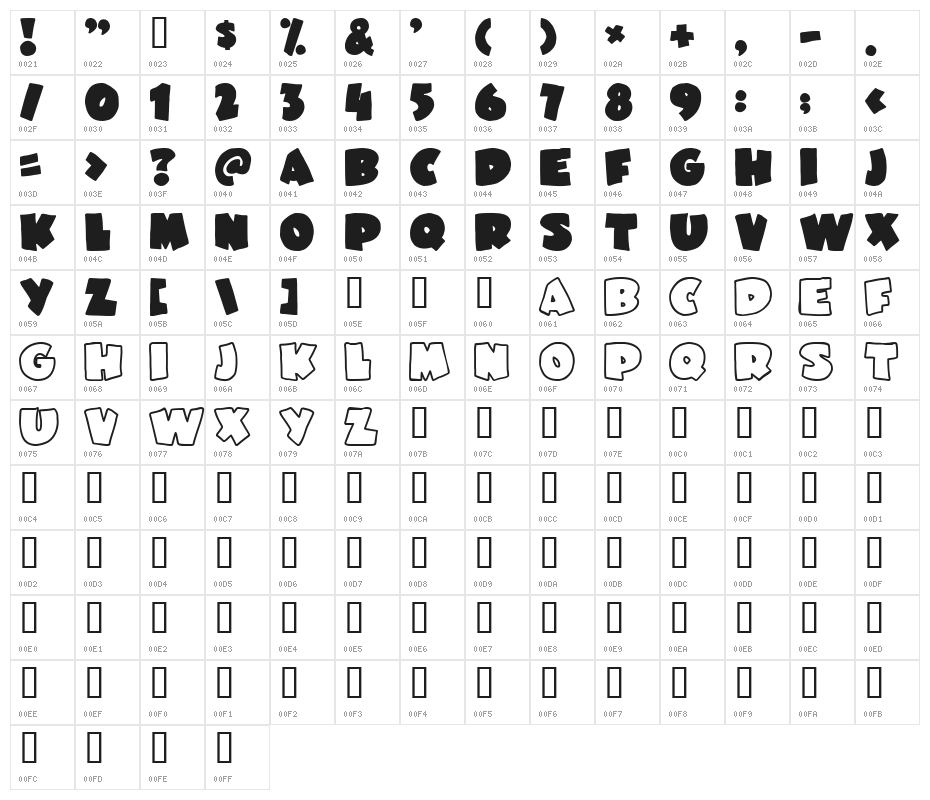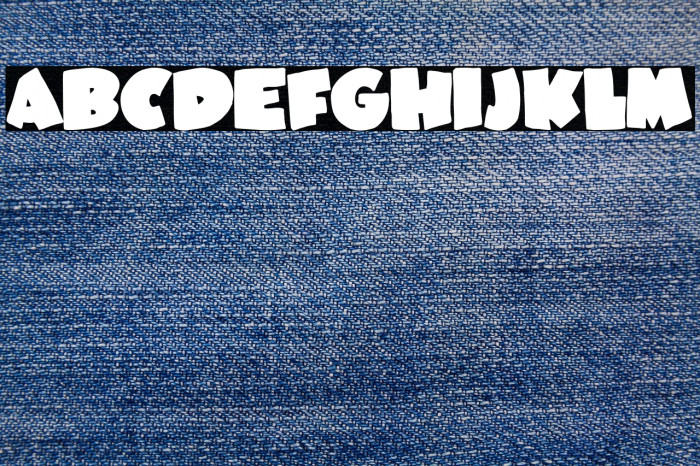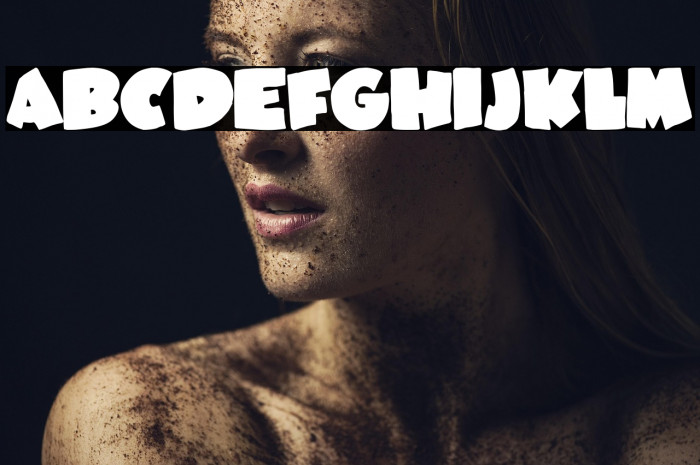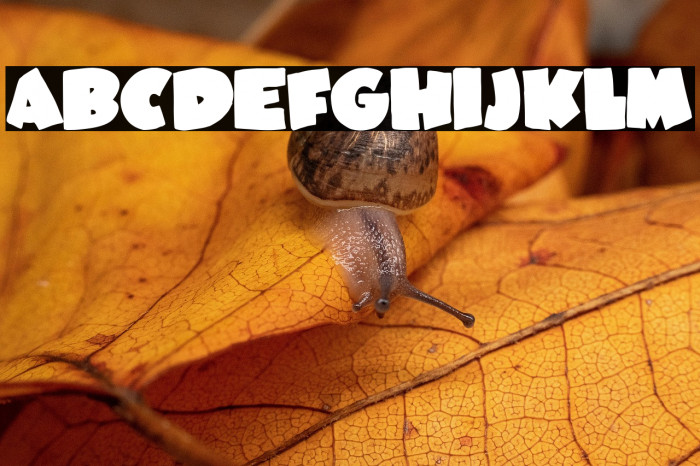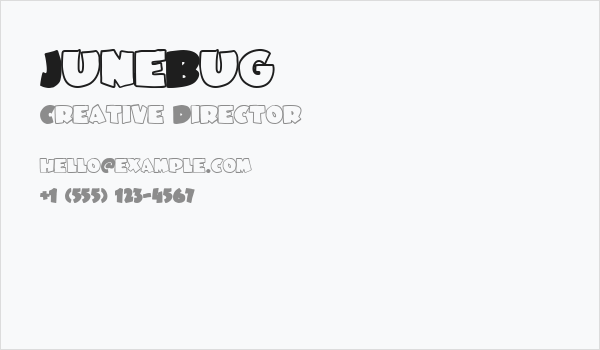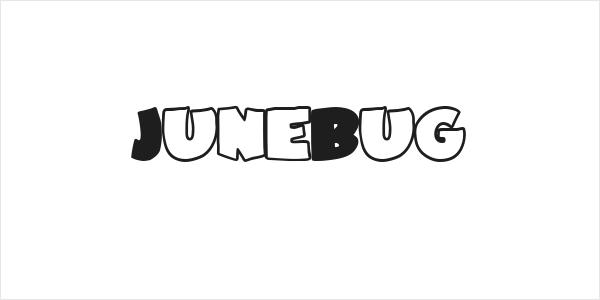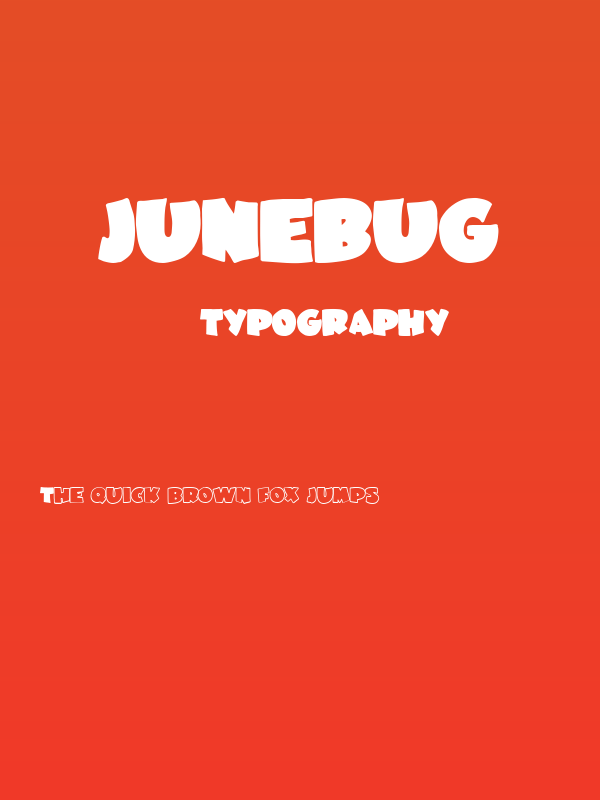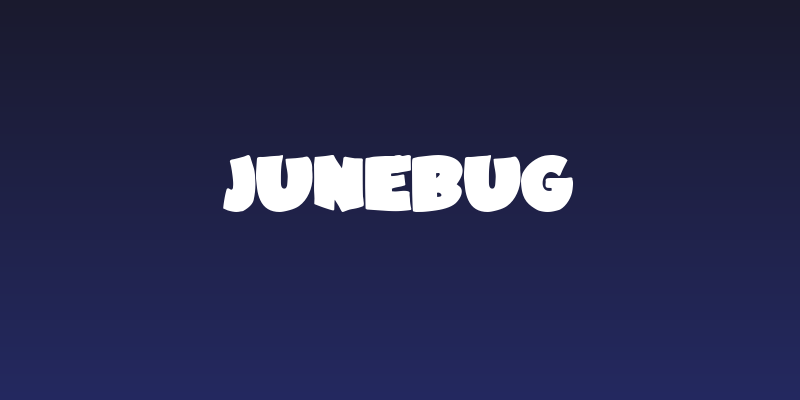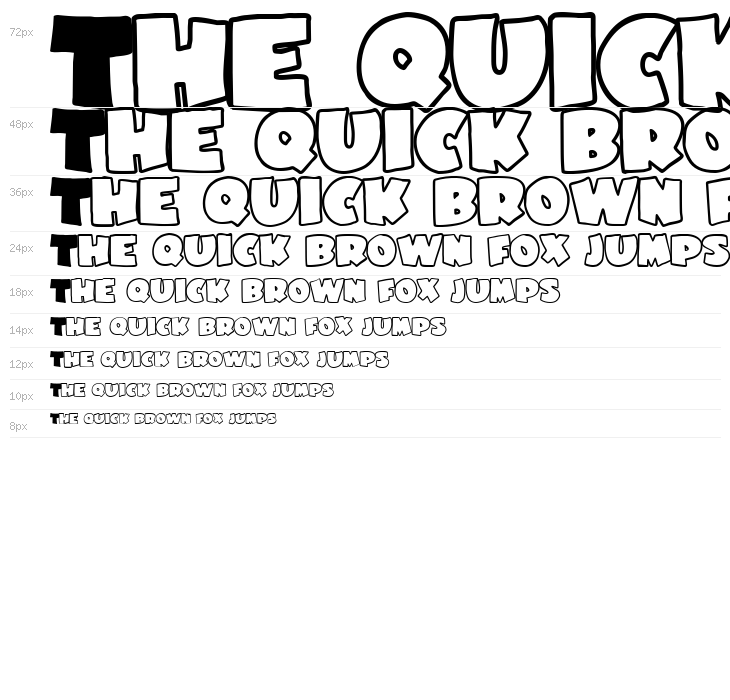
JuneBug Font
JuneBug Description
This playful and bold font features a chunky, cartoonish style with exaggerated curves and a lively appearance. The uppercase letters are large and rounded, giving off a sense of fun and whimsy. The lowercase letters maintain the same playful aesthetic, with a slightly more compact form. The numbers are equally bold, with a consistent thickness that matches the letters. Special characters are designed to fit seamlessly with the overall style, adding to the font's versatility. This font is perfect for projects that require a touch of humor and creativity, making it ideal for children's books, comic strips, or playful branding.
| Overall Style | Playful, Cartoonish, Fun |
| Proposed Projects | Children's books, comic strips, playful branding, party invitations, and posters. |